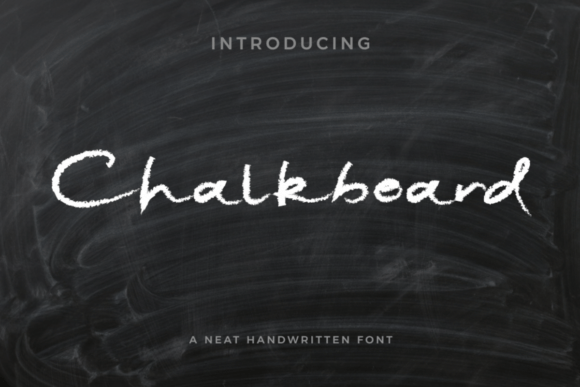
The Joy of Handwritten Charm
As you sit at your desk, surrounded by scribbled notes and half-finished ideas, the urge to create something truly special strikes. You reach for a piece of paper, grab a pencil, and let your imagination run wild. The scratch of the pencil on paper, the imperfect lines and curves, it’s a beautiful thing. And that’s exactly what the Chalkboard Font captures – the essence of handwritten charm.
This uniquely handcrafted typeface is a masterclass in warmth and character. It’s perfect for adding a delightful, artisanal touch to your artistic projects, making your text come alive with an enchanting, handwritten warmth. Whether you’re a designer, artist, or simply someone who loves to express themselves, the Chalkboard Font is a valuable tool that will help you bring your ideas to life.
Key Features of Chalkboard Font
- Size: Available in various font sizes, including regular, bold, italic, and bold italic, allowing for flexibility in design and layout.
- Resolution: Designed to be high-resolution, making it suitable for use in both print and digital applications, including posters, signs, and digital displays.
- Unique Characteristics: Chalkboard font is known for its distressed, vintage look, which gives it a unique and eye-catching appearance.
- Legibility: Despite its distressed appearance, Chalkboard font is highly legible, making it suitable for use in a variety of applications, including signage and display text.
- Font Pairing: Chalkboard font pairs well with other distressed or vintage fonts, as well as clean and modern fonts, allowing for flexibility in design and layout.
Designer Review: Chalkboard Font
Chalkboard font is a great addition to any design project looking to add a vintage or educational feel. ✨ I love how it adds a sense of nostalgia and familiarity to text, making it perfect for quotes, signs, or headings.
- Works well in headings and titles
- Good for creating a sense of nostalgia and familiarity
- Can be used to add a vintage feel to designs
However, there are some limitations to consider. ⚠️ The font can be a bit difficult to read in smaller sizes or when used for large blocks of text, and it may not be suitable for formal or professional designs.
- Difficult to read in smaller sizes
- Not suitable for large blocks of text
- Not ideal for formal or professional designs
Overall, I think Chalkboard font is a great choice for designers looking to add a touch of whimsy and personality to their projects. It’s versatile, easy to use, and adds a lot of character to text. With a bit of caution when it comes to text size and design style, Chalkboard font can be a valuable addition to any designer’s toolkit.
For the most effective use of Chalkboard Font, keep the following tips in mind:
- Use it for casual, handwritten-style text, such as quotes, headings, or captions.
- Pair it with bold or sans-serif fonts to create visual interest.
- Experiment with different colors and backgrounds to create a unique look.
Alternatives to Chalkboard Font
Great Vibes is a script font that mimics the look of handwriting. It’s perfect for creating a relaxed, casual atmosphere and can be used in a variety of designs, from wedding invitations to restaurant menus. Unlike Chalkboard Font, Great Vibes has a more fluid and organic feel, making it ideal for designs that require a softer, more personal touch.
Playfair Display is an elegant script font that’s perfect for creating a luxurious and sophisticated look. It’s commonly used in high-end branding, magazine headlines, and wedding stationery. While Chalkboard Font is more rustic and casual, Playfair Display is refined and sophisticated, making it a great alternative for designs that require a touch of elegance.